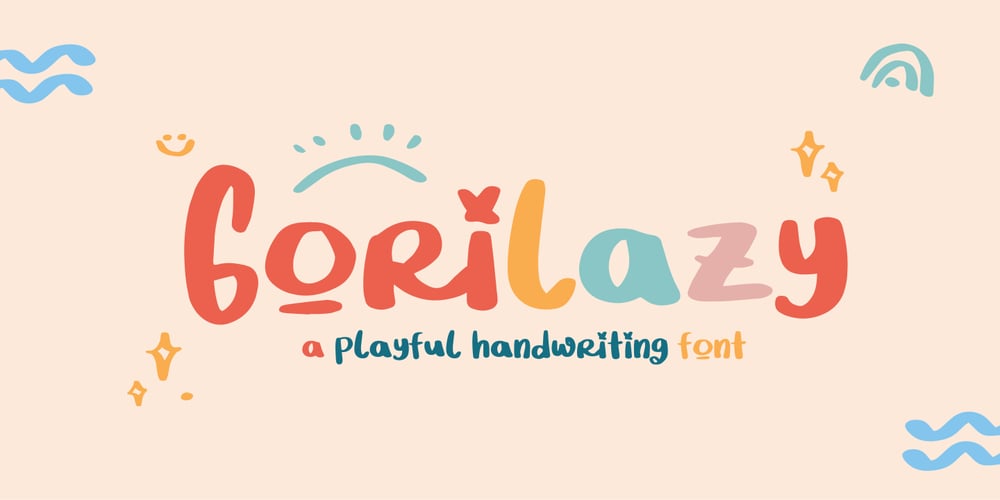
Gorilazy Font Family was designed by Gitayogi Irhandi and published by Scratch Design. Gorilazy contains 1 styles and family package options. Gorilazy is playful handful font, this font has a cute and unique shape and it’s perfect for playful design like beautiful contrasting typography for a diversity of design projects, including; logos & branding, packaging design, social media posts, advertisements & product designs, poster, presentation, children’s movie title, quotes, youtube title, novel cover, comic book design, and etc. This font also supports multi-languages and Cyrillic font type. Gorilazy font containing uppercase only characters, numerals, and a large range of punctuation. Creates a perfect pairing of beautiful contrast with Gorilazy fonts.